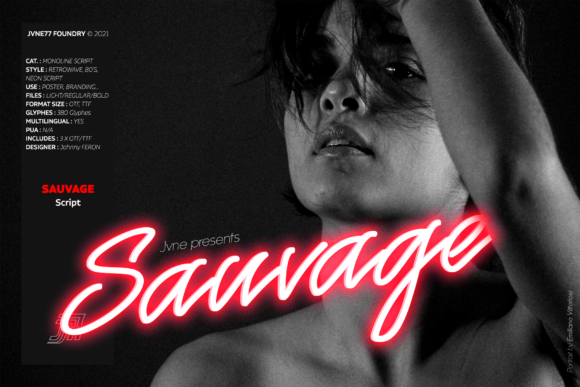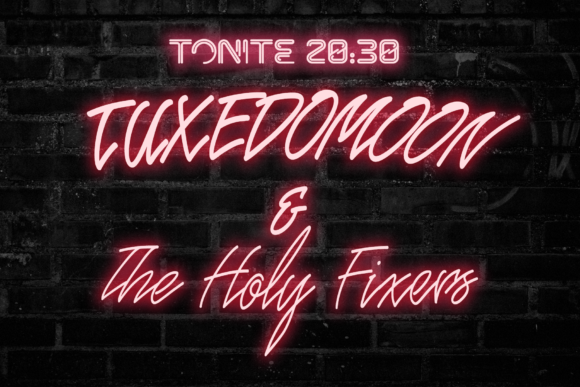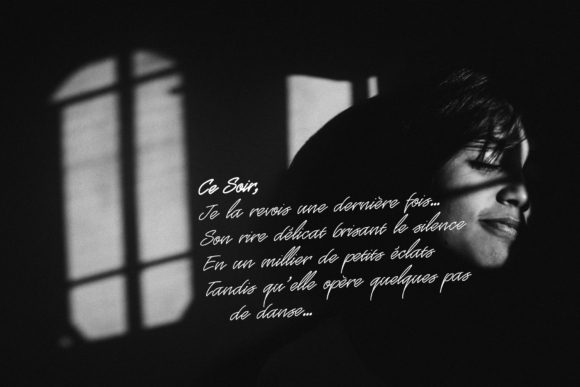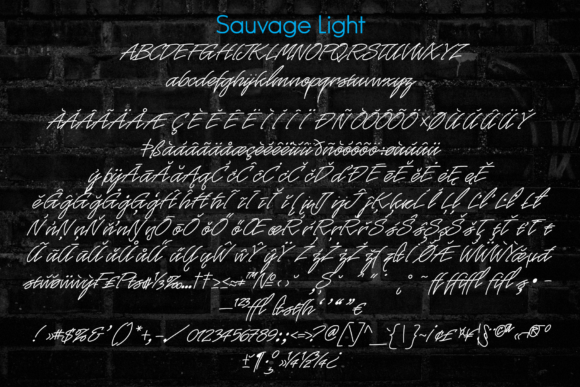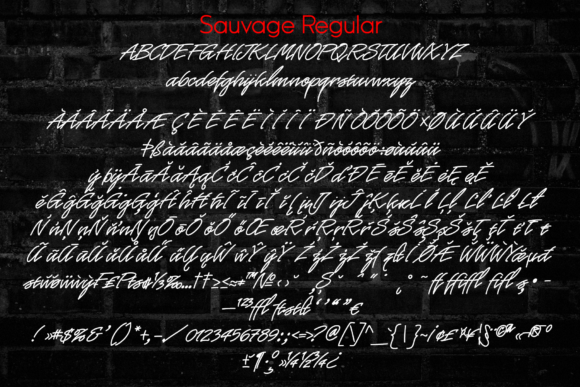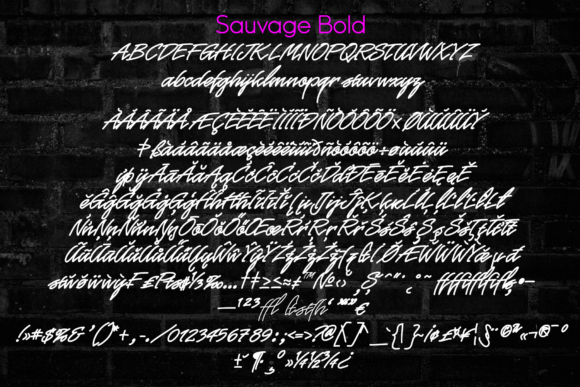
Sauvage Neon Script Font
About Sauvage Neon Script Font
Sauvage Neon Script is a casual and flowing script font. Its natural and unique style makes it incredibly fitting to a large pool of designs. The only limit is your imagination!